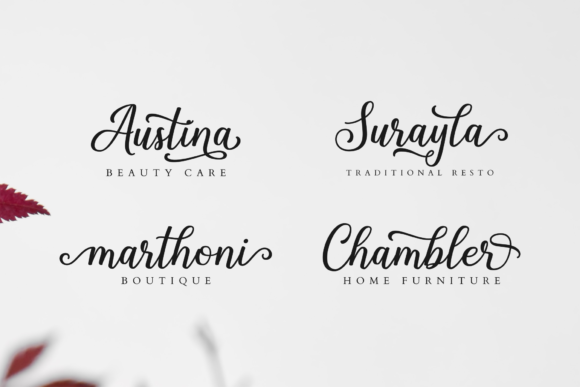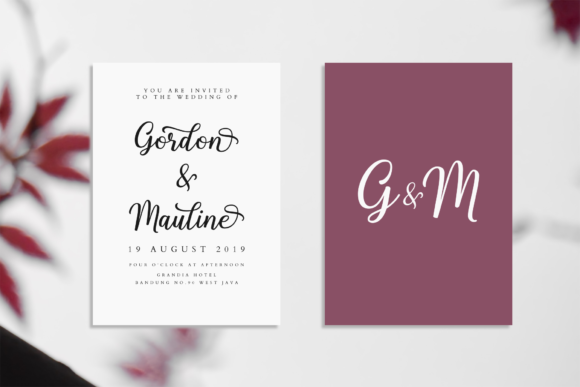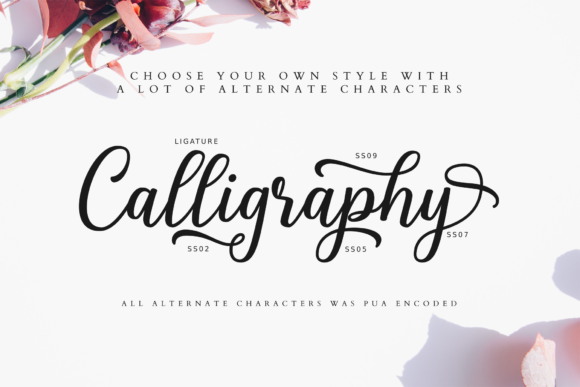
Introduction to Shalinta Font
Have you ever stared at a blank canvas, trying to bring your creative project to life, only to feel stuck because of the perfect font to match your vision? That’s exactly where I was when I stumbled upon the stunning Shalinta Font.
As a designer, finding the right font can be a game-changer for any project. It’s the difference between a design that’s merely good and one that’s truly exceptional. And that’s exactly what the Shalinta Font offers – a beautiful calligraphy font with alternates that can be used to add a touch of elegance and sophistication to your design.
Key Features of Shalinta Font
- High-quality design resource ideal for creative projects, including logos, branding materials, and more.
- Includes a comprehensive character set, with over 1000 glyphs and support for multiple languages.
- Designed to be versatile and adaptable, making it perfect for use in a wide range of creative projects, from digital to print.
Honest Review: Shalinta Font
As a designer, I’m always on the lookout for new and exciting design resources to enhance my creative projects. Recently, I stumbled upon the Shalinta Font, and I’m excited to share my honest review with you.
First impressions are everything, and the Shalinta Font definitely makes a statement. The font is sleek, modern, and highly customizable, making it perfect for a wide range of creative projects. One of the standout features of the Shalinta Font is its transparent background, which allows for seamless integration into any design.
Here are some of the things that work well with the Shalinta Font:
- High-quality design that’s perfect for modern projects
- Highly customizable for a unique look
While the Shalinta Font is a great addition to any design arsenal, there are a few limitations to be aware of:
- May not be suitable for traditional or vintage-style projects
- Requires a bit of expertise to fully customize
- May not be as versatile as some other fonts on the market
Overall, I’m impressed with the Shalinta Font and would highly recommend it to designers working on modern, high-quality projects. With a bit of creativity and customization, the Shalinta Font can elevate your design to the next level.
The Shalinta Font is a versatile design resource that can be used for a variety of creative projects, such as logos, brochures, and social media graphics. Its transparent background makes it ideal for overlaying on images or videos.
For a high-quality look, pair the Shalinta Font with a contrasting background color. You can also experiment with different font sizes and styles to create visual interest. The Shalinta Font is available for free download, making it an excellent choice for designers on a budget.